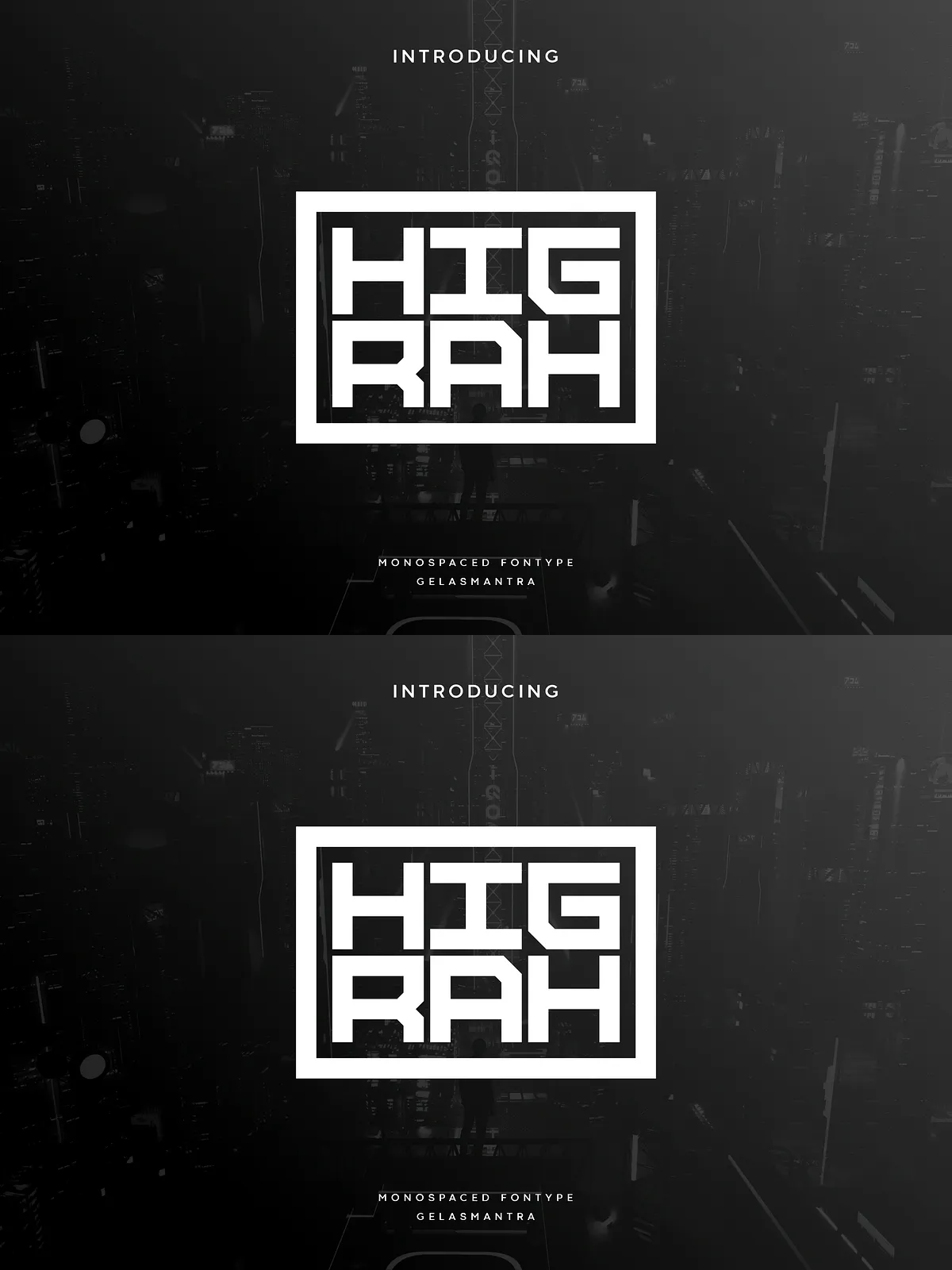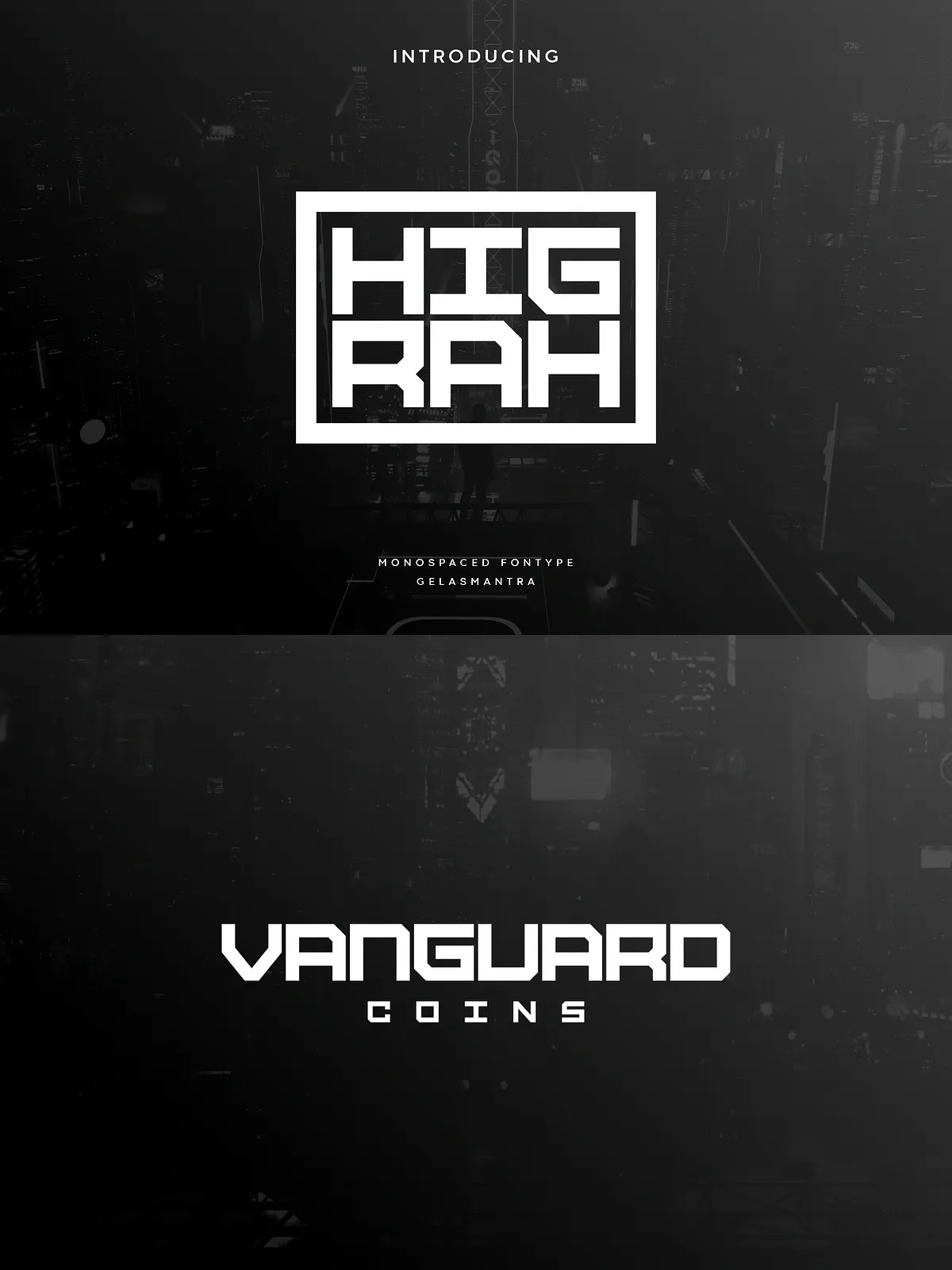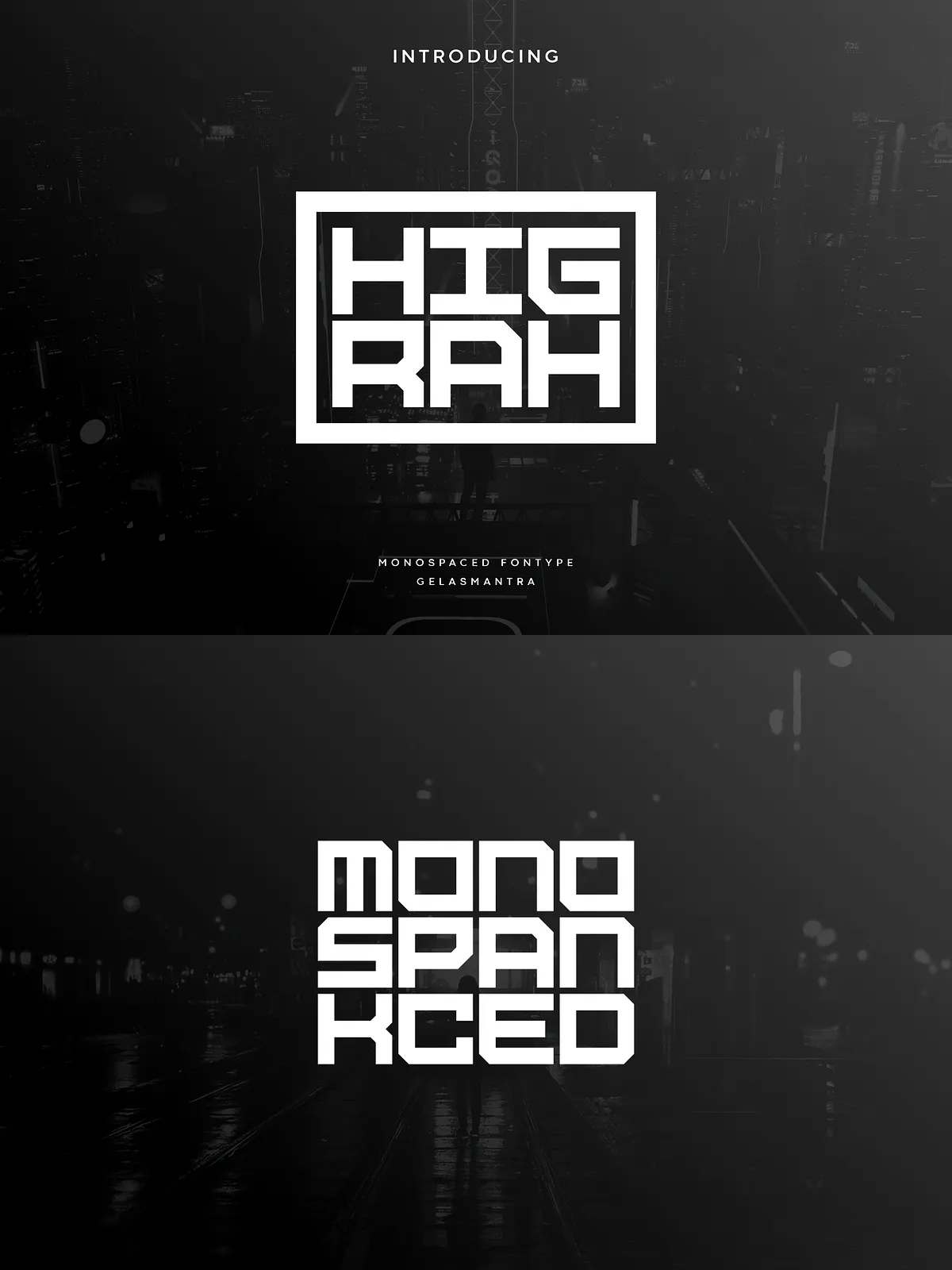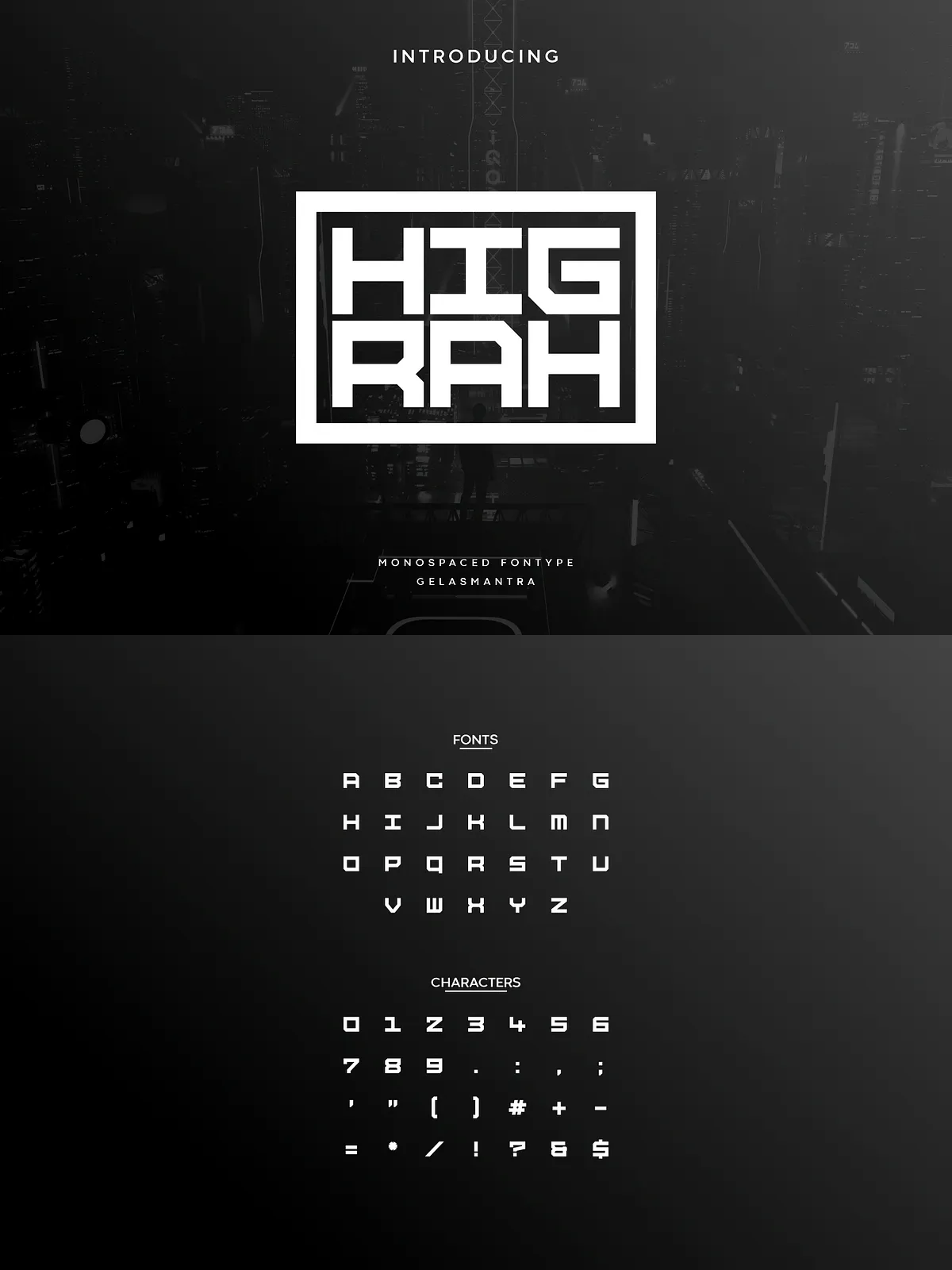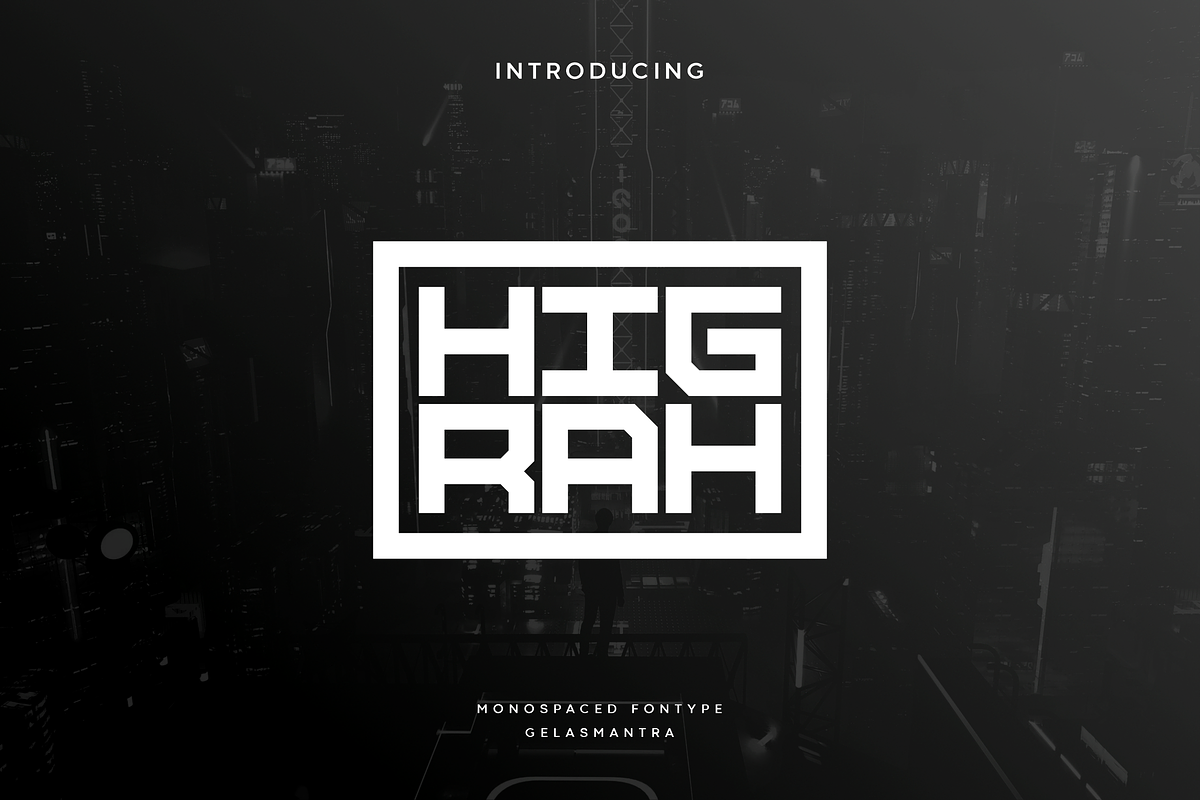
Higrah is an industrial monospace typeface that delivers a strong, masculine presence through squared letterforms and a distinctive approach to capitalization. Designed to communicate precision and technical clarity, Higrah works exceptionally well in display contexts where clarity and attitude matter. Use it to anchor titles, logos, posters, and technical illustrations that require a confident visual voice.
- Industrial Monospace Structure: Fixed-width glyphs create a consistent rhythm that enhances technical layouts and grid-based compositions.
- Square Geometry: Hardened terminals and square counters emphasize rigidity and engineered form, reinforcing an industrial aesthetic.
- Unique Capitalization Style: Distinct treatment of uppercase characters gives headlines and brand marks a memorable, sculpted silhouette.
- High Visual Impact: Strong strokes and compact spacing deliver boldness at large sizes while maintaining legibility in headlines and logos.
Design Characteristics
Masculine and Technical Tone
Higrah reads as assertive and engineered. The square terminals and equalized glyph widths produce a precise rhythm that designers can use to convey structure, technical competence, and urban or industrial themes.
Geometry and Readability
Although Higrah emphasizes geometric rigidity, it maintains readable counters and distinctive letter shapes to avoid confusion between similar glyphs. This balance makes the font effective for both display headlines and information-driven graphics.
Practical Use Cases
Logos and Wordmarks
Leverage Higrah’s strong silhouettes to create compact, high-impact logos. The capitalization style can become a signature element in brand identities targeting technology, engineering, industrial manufacturing, and urban lifestyle sectors.
Titles, Posters, and Packaging
Use Higrah for prominent titles and poster headlines where an authoritative look is required. Its square forms translate well to packaging, product labels, and apparel graphics that demand a modern, engineered appearance.
UI, Dashboards, and Technical Documentation
Because of its monospace nature, Higrah suits grid-based interfaces, dashboards, or signage where alignment and consistent character width simplify layout and improve scannability.
Pairing and Styling Tips
Complement with Neutral Sans
Pair Higrah with a neutral sans-serif for body copy to maintain readability and to let Higrah carry the display weight. A humanist or neo-grotesque sans will balance Higrah’s industrial hardness.
Contrast with a Soft Serif
For editorial or lifestyle projects, introduce a warm, low-contrast serif for long-form text. The serif’s softness offsets Higrah’s geometry and creates a compelling typographic hierarchy.